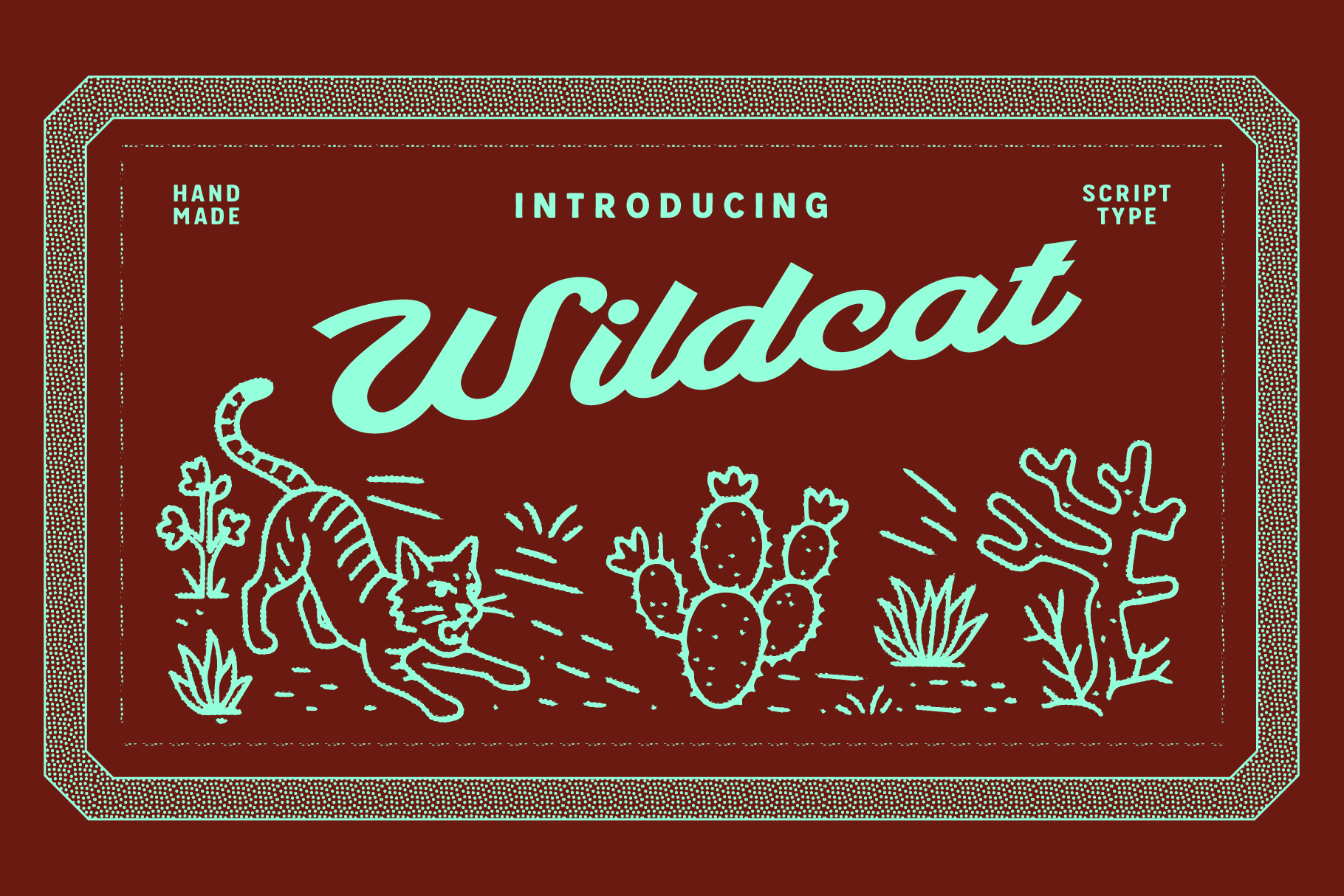
Wildcat - script typeface
Meet Wildcat, a bold and energetic script font that brings vintage attitude and handcrafted charm to every letter. With sweeping curves, chunky strokes, and a confident slant, Wildcat is perfect for adding a retro charm to your branding, packaging, signage, and illustration work that begs for a punch of personality.
This typeface balances retro flair with modern usability, making it ideal for everything from taco joints and roadside bars to apparel brands and creative studios. Whether you're designing a bold header or crafting a nostalgic label, Wildcat adds a lively, expressive touch with just enough grit.
Let Wildcat run wild across your next design.